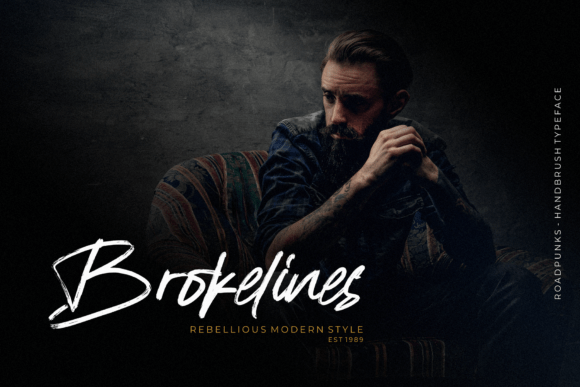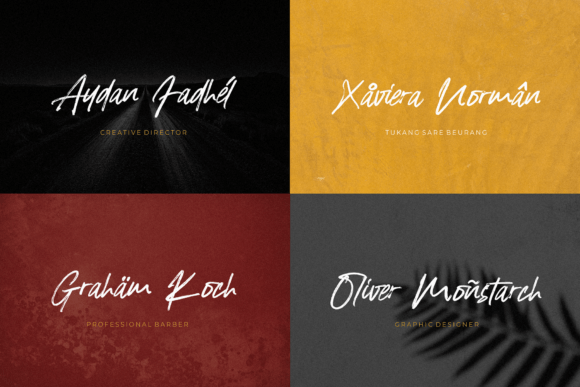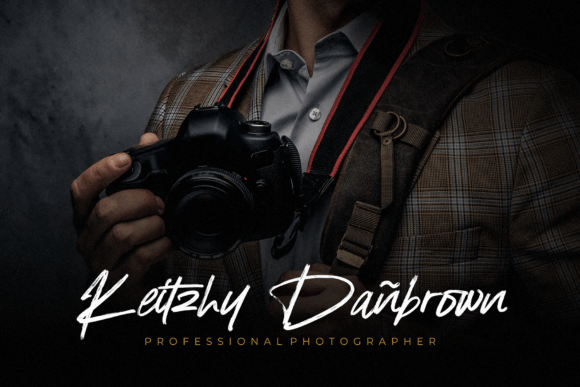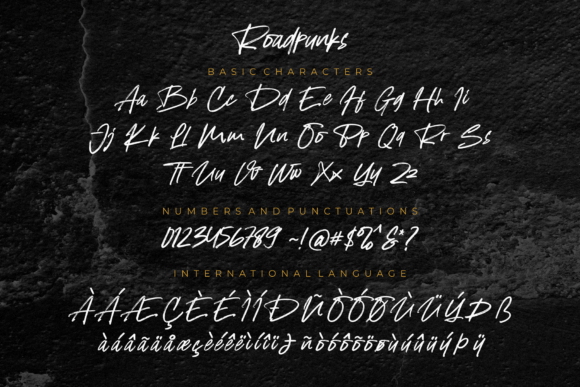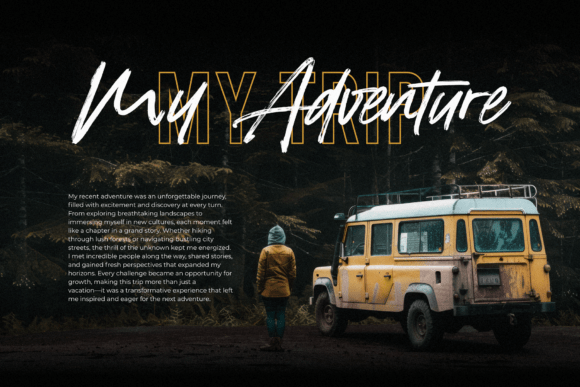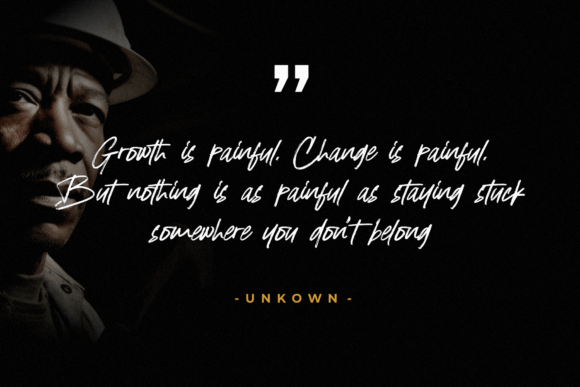
Unlocking the Power of Roadpunks Font
Do you remember the rush of excitement when you first started brainstorming ideas for your latest creative project? The spark of inspiration hits, and you know you’ve got something special. For designers, that moment is what drives us to create something truly unique and impactful. And that’s exactly what the Roadpunks Font can bring to your designs.
As a high-quality design resource, Roadpunks Font offers a free download option that’s perfect for any creative project. With its authentic handcrafted feel and transparent background, this font is an ideal choice for designers looking to add a personal touch to their work. Whether you’re working on a poster, packaging, or social media graphics, Roadpunks Font adapts effortlessly to various projects, ensuring your designs stand out from the crowd.
Key Features of Roadpunks Font
- High-quality font design for creative projects, perfect for graphic designers and artists.
- Features a unique, bold style that is ideal for use in street art, graffiti, and other urban-themed designs.
Honest Review: Roadpunks Font
I recently had the chance to try out the Roadpunks Font, and I have to say it’s been a game-changer for my creative projects. This font is perfect for anyone looking to add a touch of edginess to their designs.
- High-quality design: The Roadpunks Font has a sleek and modern aesthetic that looks great on any design surface.
- ⚠️ Limited character set: While the Roadpunks Font has a solid selection of letters and symbols, it’s not as extensive as some other fonts on the market.
- ⚠️ Not suitable for body text: Due to its bold and playful style, the Roadpunks Font is best used for headlines and titles rather than body text.
Overall, I’m really impressed with the Roadpunks Font. It’s a fantastic design resource that can add a lot of personality to your creative projects. With its high-quality design and free download, it’s definitely worth checking out.
Tips for Getting the Most Out of Roadpunks Font
Experiment with different font sizes, styles, and colors to achieve the desired effect. Use the font in combination with other design elements, such as images and shapes, to create visually appealing designs.
The Roadpunks Font is ideal for creative projects, such as logos, posters, and social media graphics. Its high-quality design and transparent background make it a versatile resource for designers and non-designers alike.